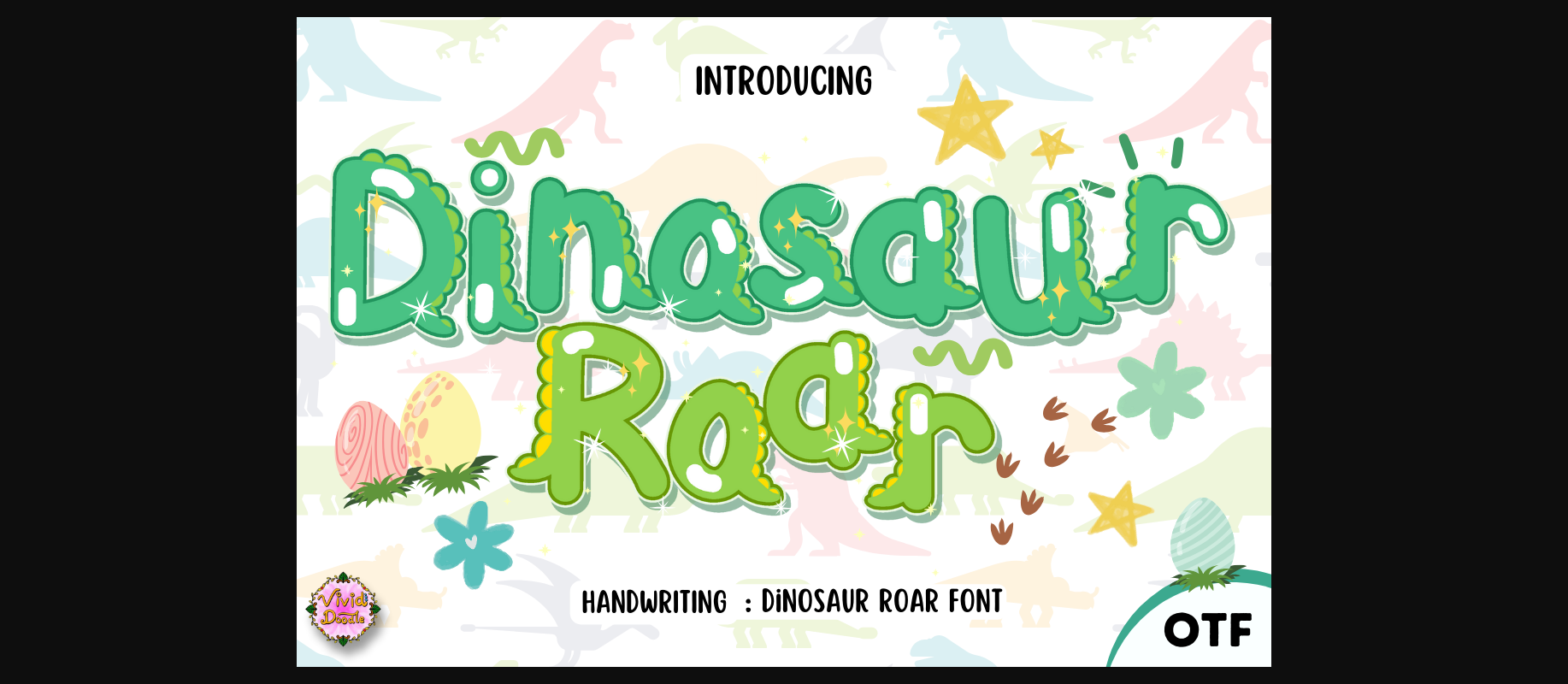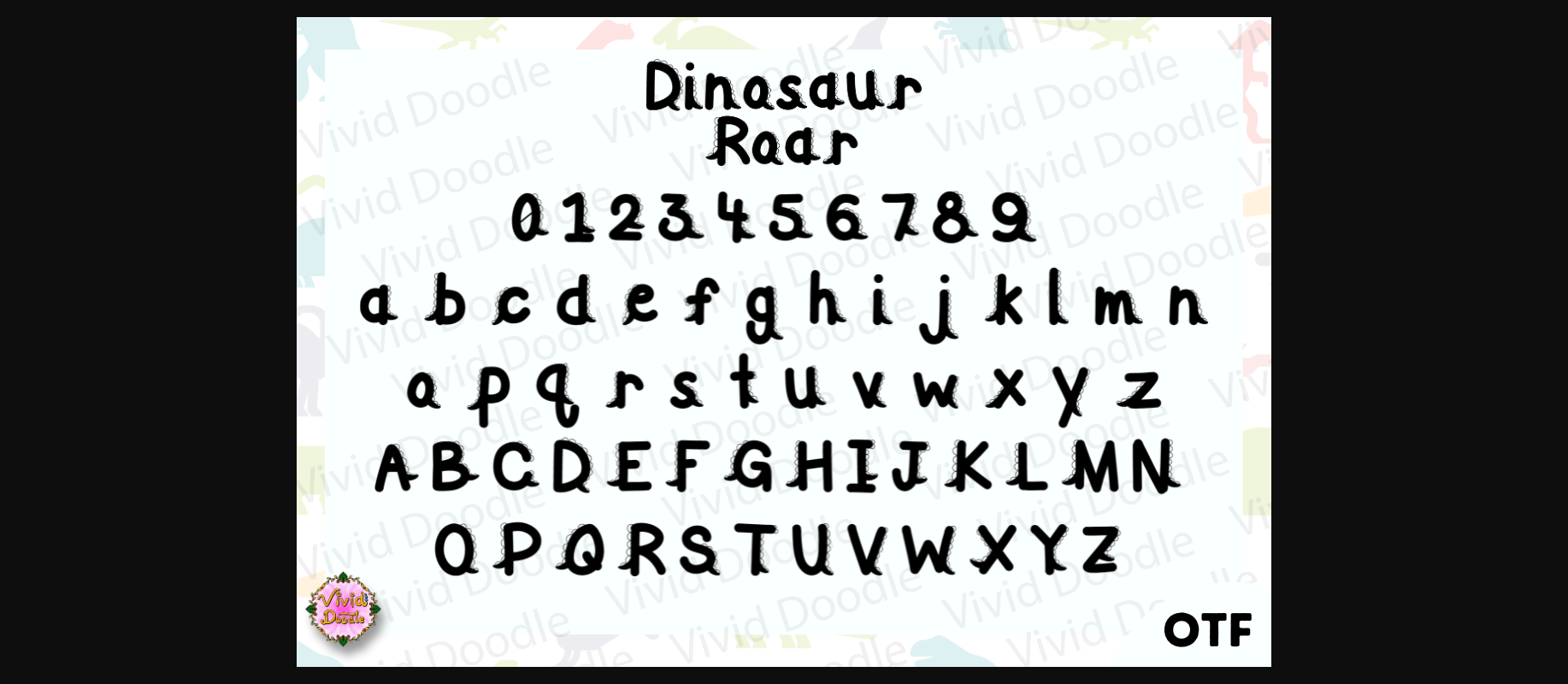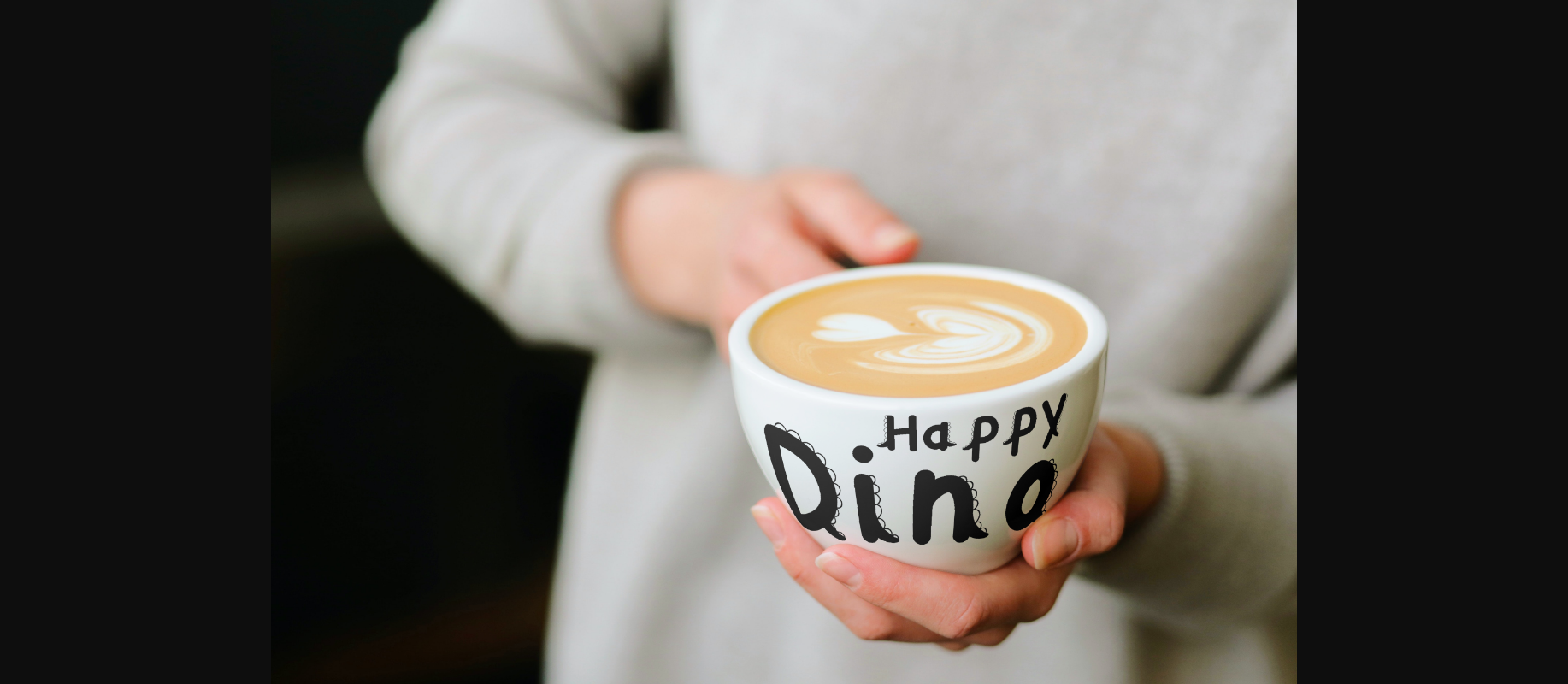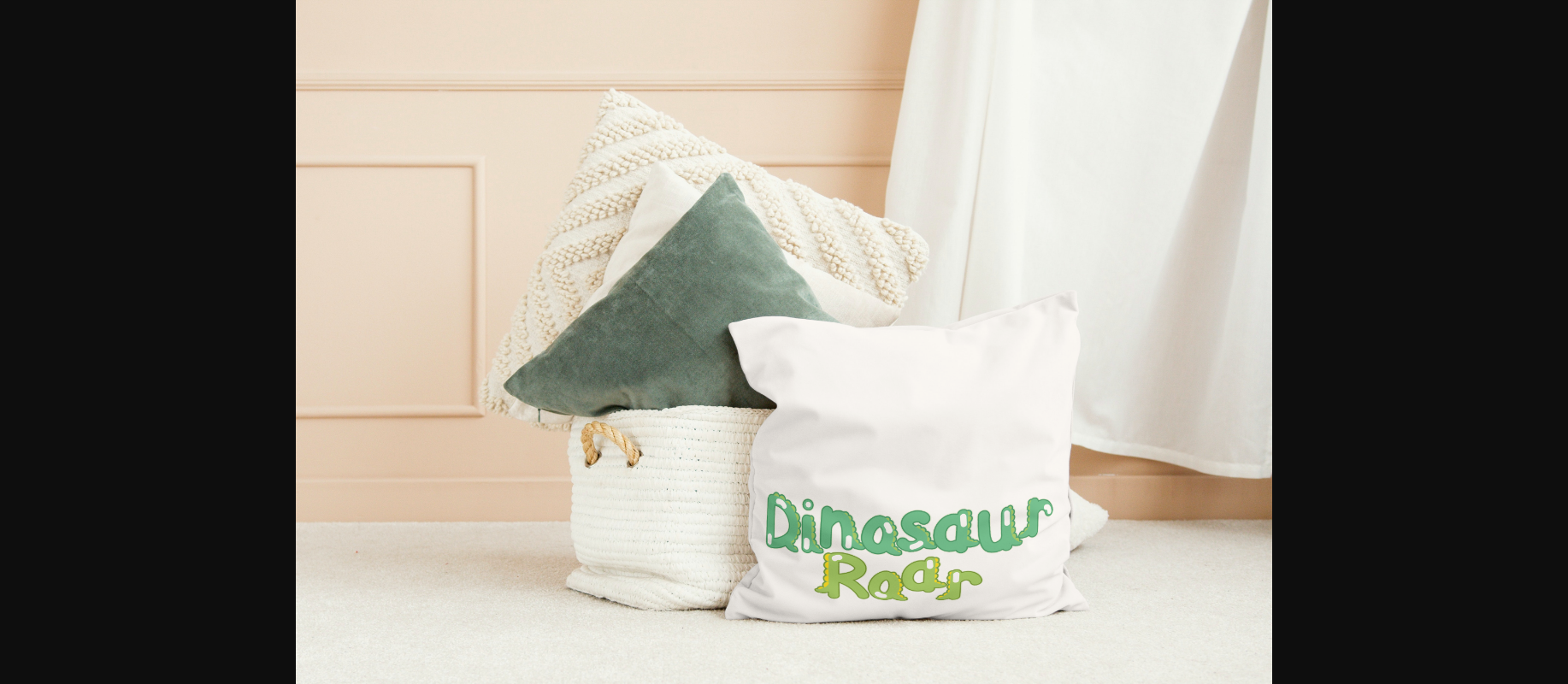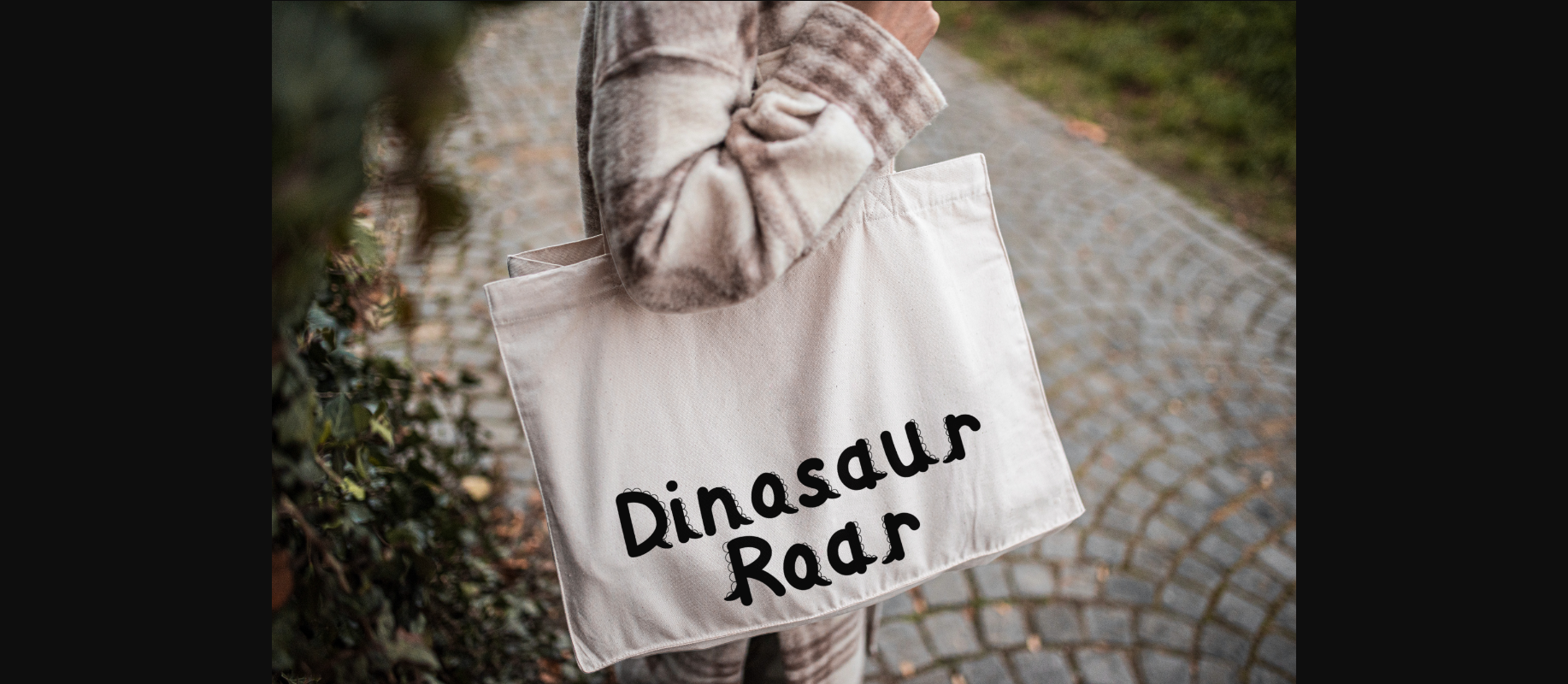
Dinosaurs Roar Font
About Dinosaurs Roar Font
Elevate your designs with the whimsical charm of our cute dinosaur font! Infuse your creations with the festive cheer and warmth of the season using this uniquely crafted typeface. Perfect for decorating your projects with an adorable, enchanting, and exclusive font, specially designed to bring a playful touch to any endeavor. Get ready to make your designs roar with creativity!